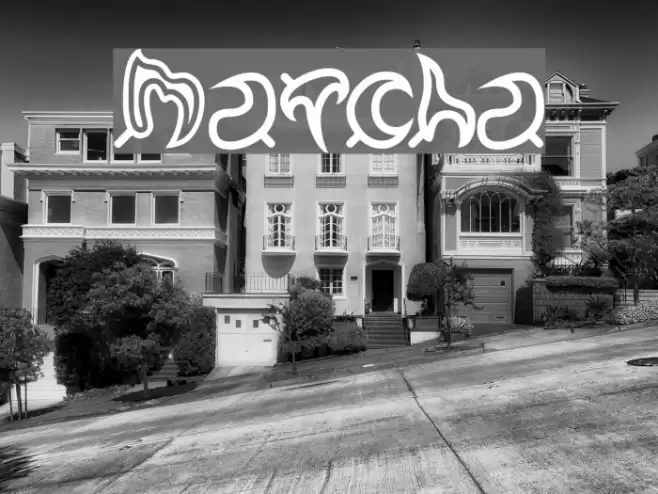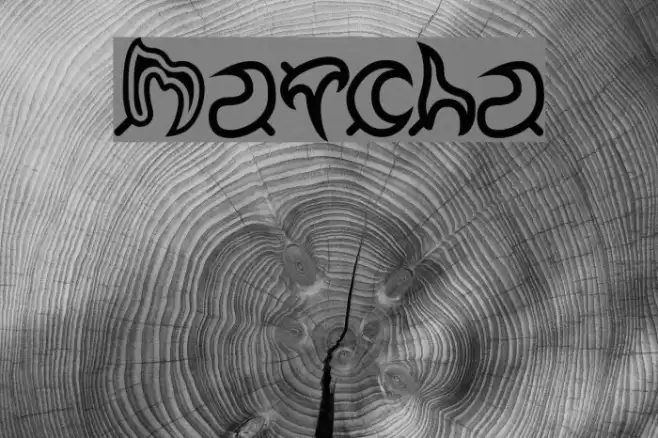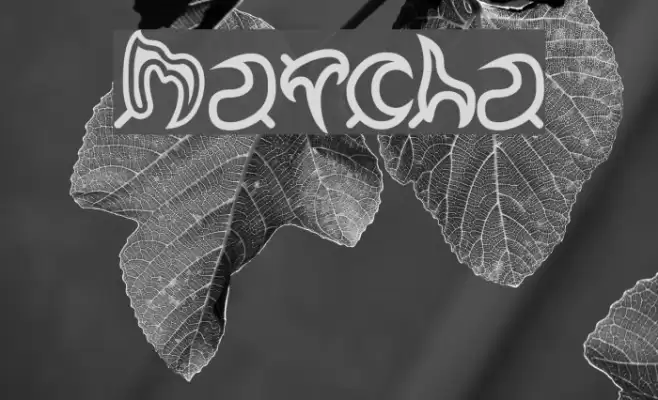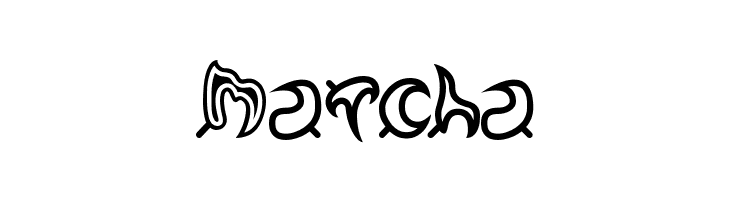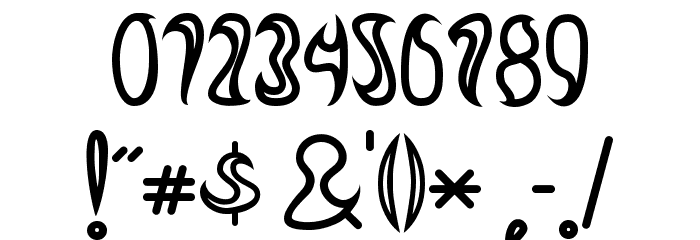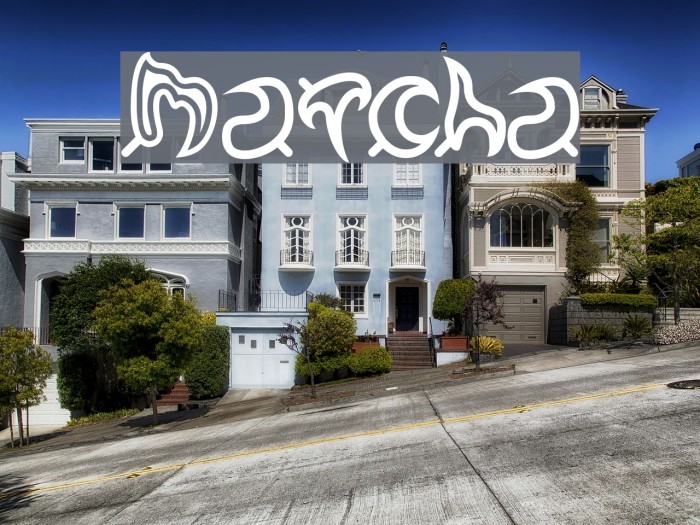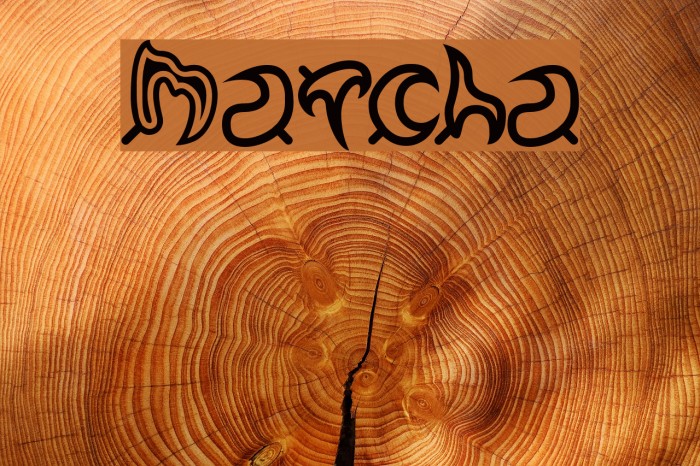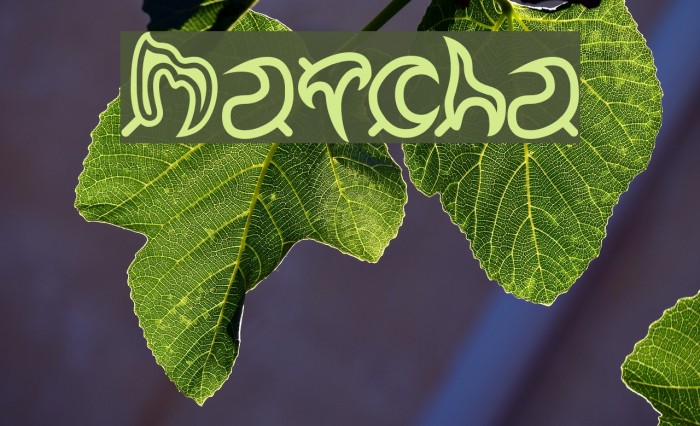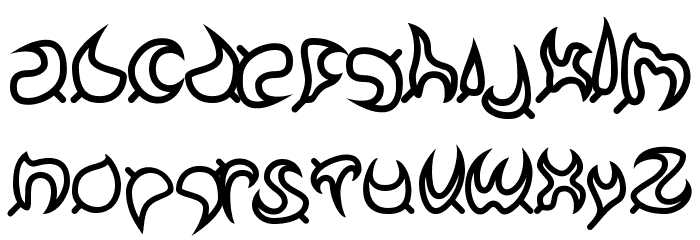
Matcha Font
Matcha Description
This font features a bold and dynamic design with a strong emphasis on curves and sharp edges. The characters are highly stylized, with an artistic flair that gives them a unique, almost tribal appearance. The uppercase and lowercase letters share a consistent style, with exaggerated loops and pointed terminals. The numbers follow the same design principles, maintaining the font's cohesive look. Special characters are equally ornate, adding to the font's decorative appeal. This font is ideal for projects that require a striking and unconventional typeface.
A bold, decorative font with tribal-inspired curves and sharp edges from Handwritten fonts.
- Proposed Projects: Ideal for branding, posters, album covers, and any project needing a bold, artistic touch.